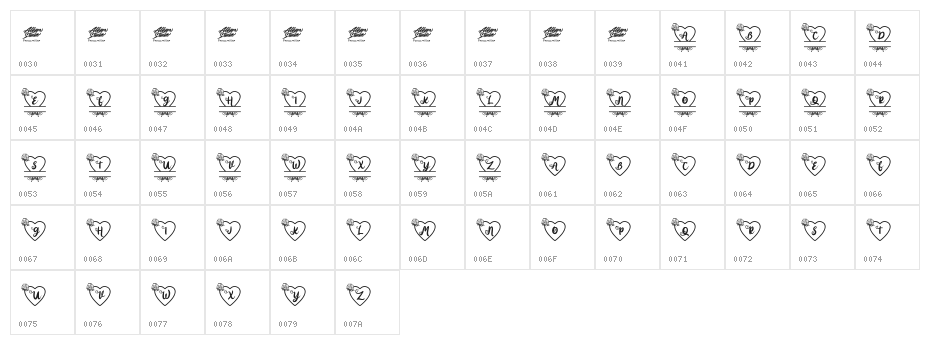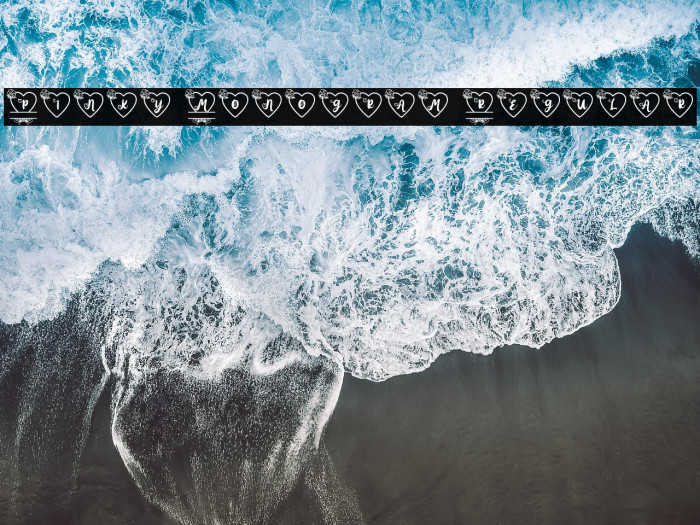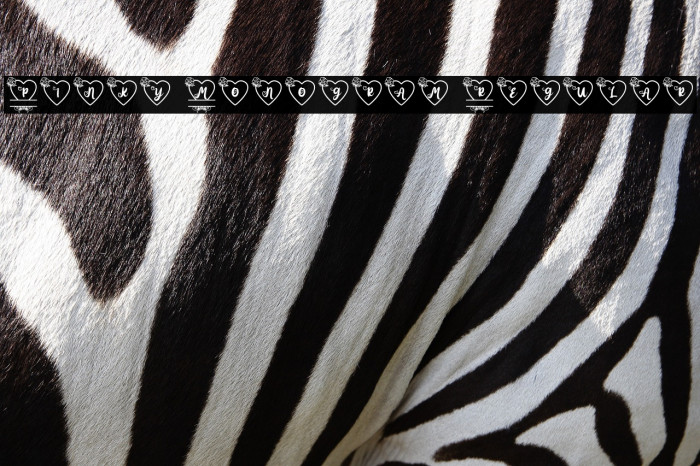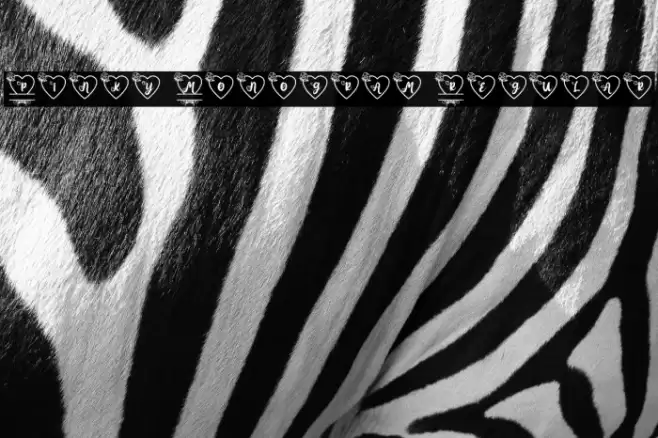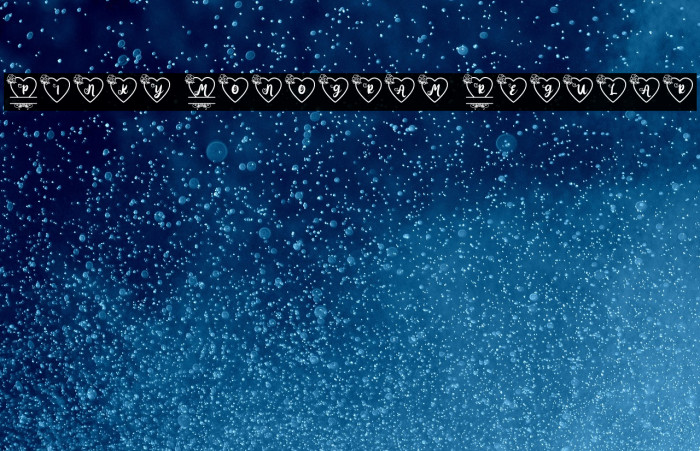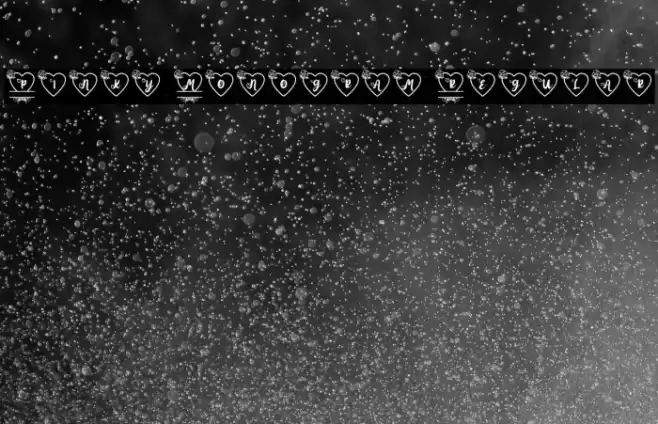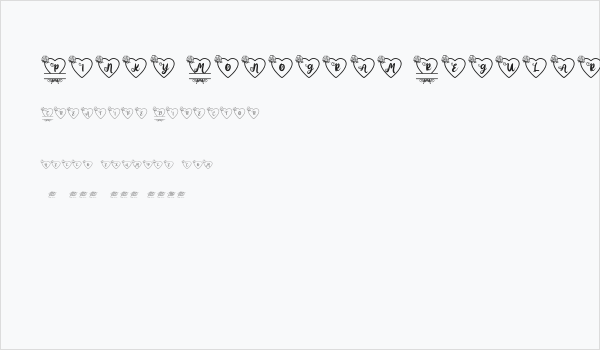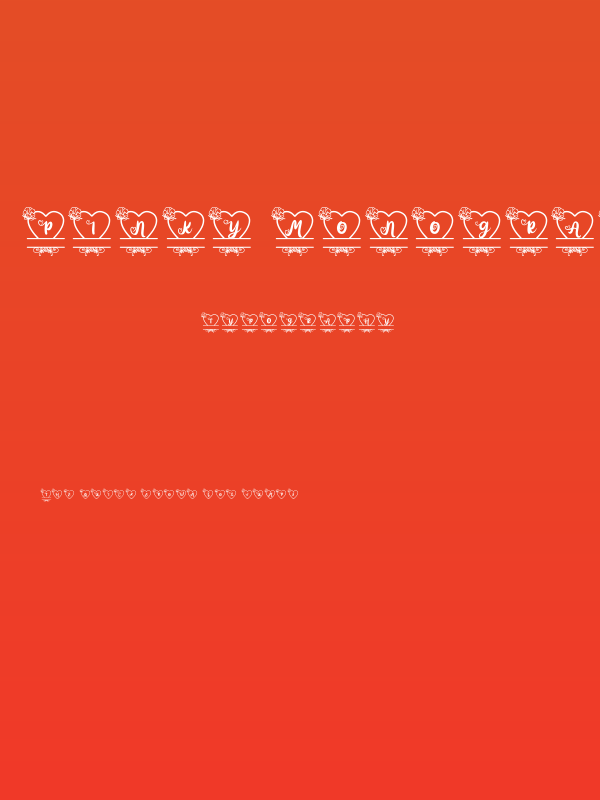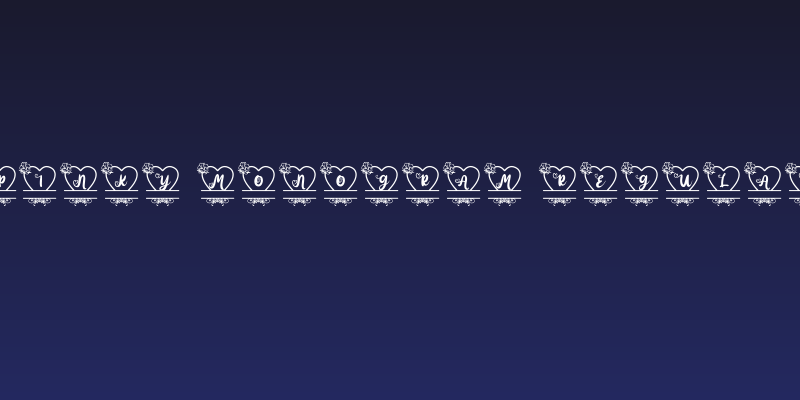
Pinky Monogram Regular Font
Pinky Monogram Regular Description
This decorative font features letters encased in heart shapes, each adorned with a small floral design. The uppercase and lowercase letters are elegantly scripted, giving a romantic and whimsical feel. The characters are presented with a consistent baseline, and the floral embellishments add a touch of sophistication. The font is ideal for projects that require a personal or intimate touch, such as wedding invitations or romantic greeting cards. The overall design is playful yet elegant, making it suitable for a variety of creative applications.
| Overall Style | Romantic and Whimsical |
| Use Case | Logos, Invitations, Decorative Text |
| Proposed Projects | Ideal for wedding invitations, romantic greeting cards, personalized gifts, and decorative monograms. |